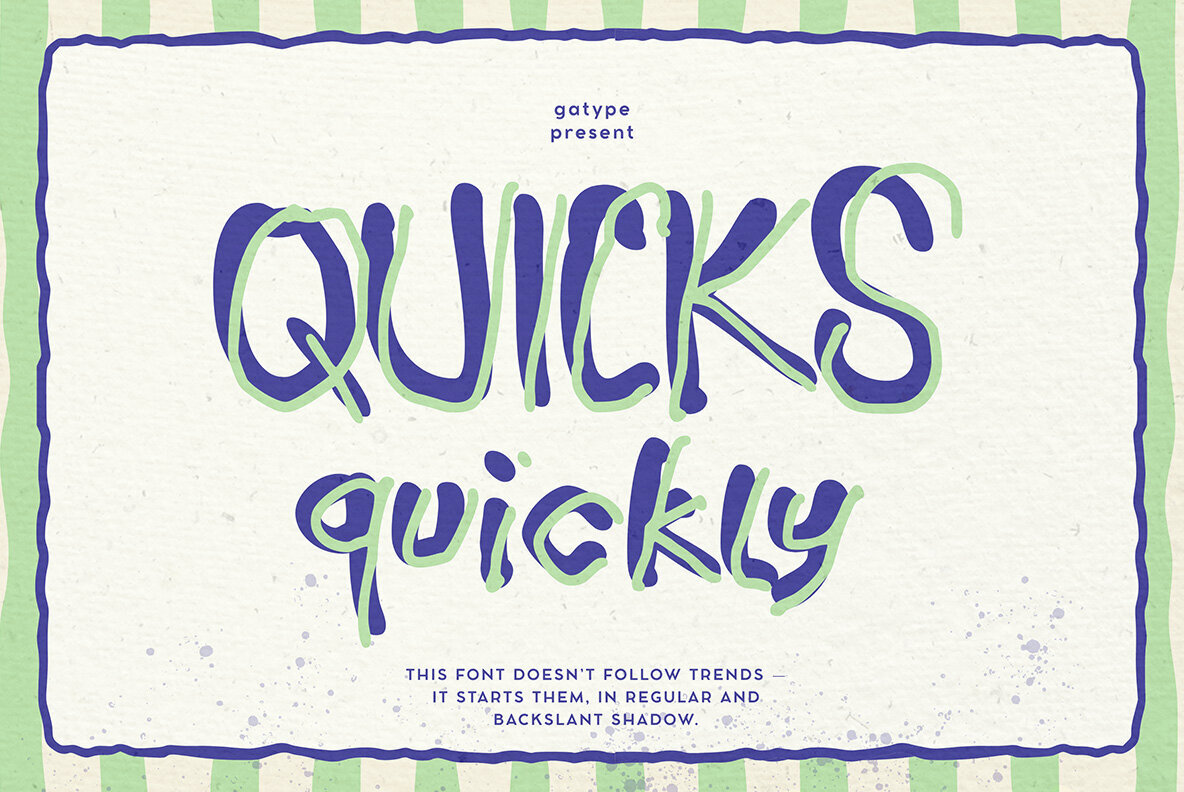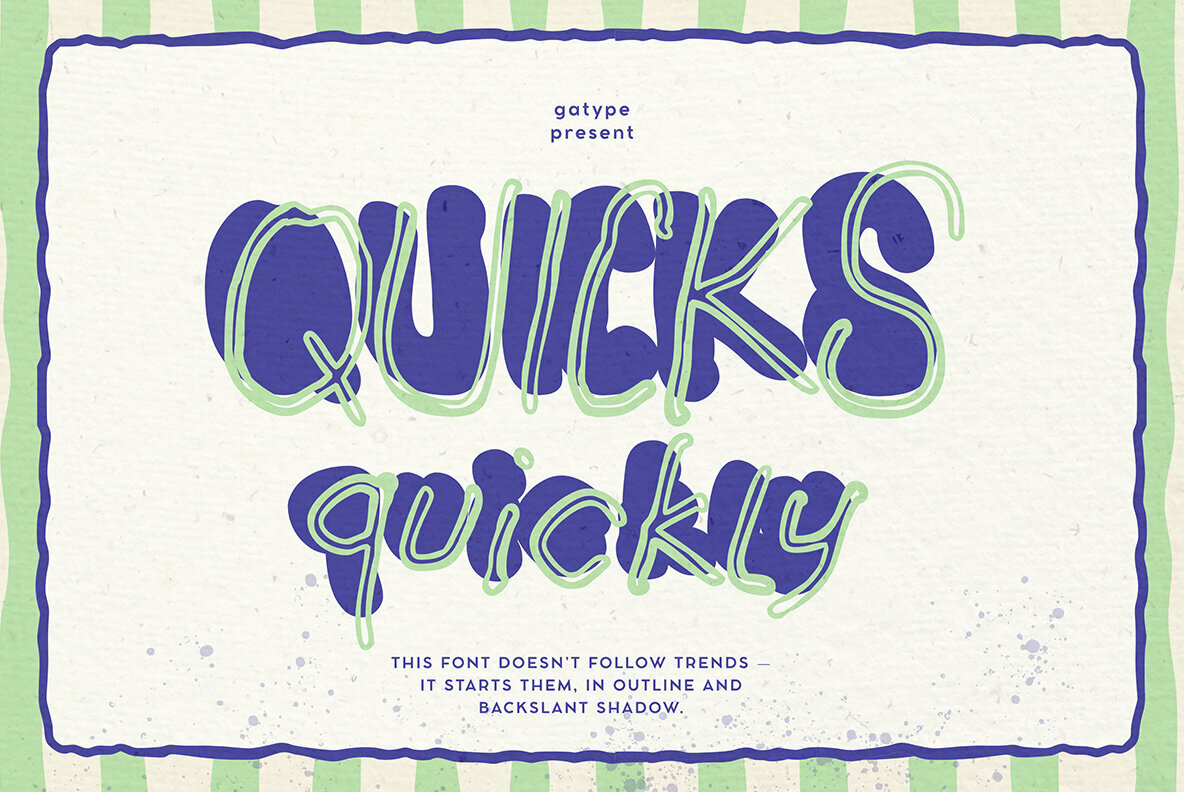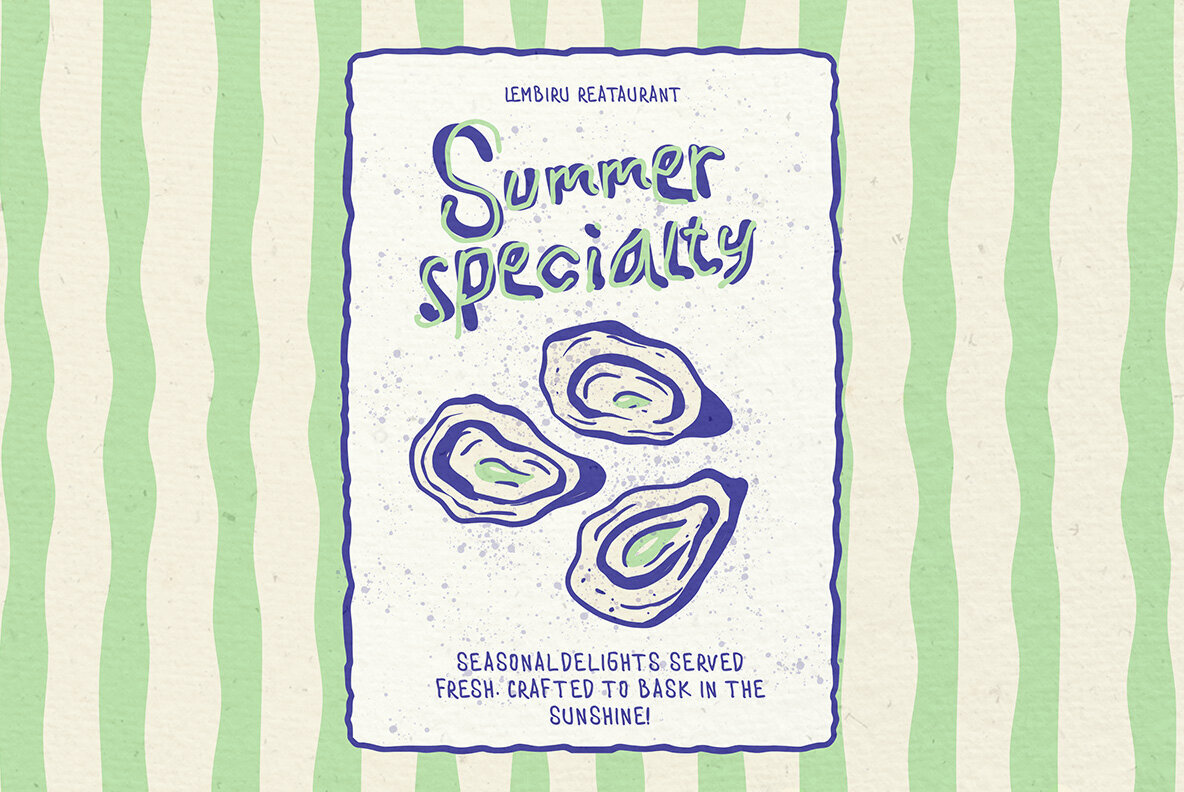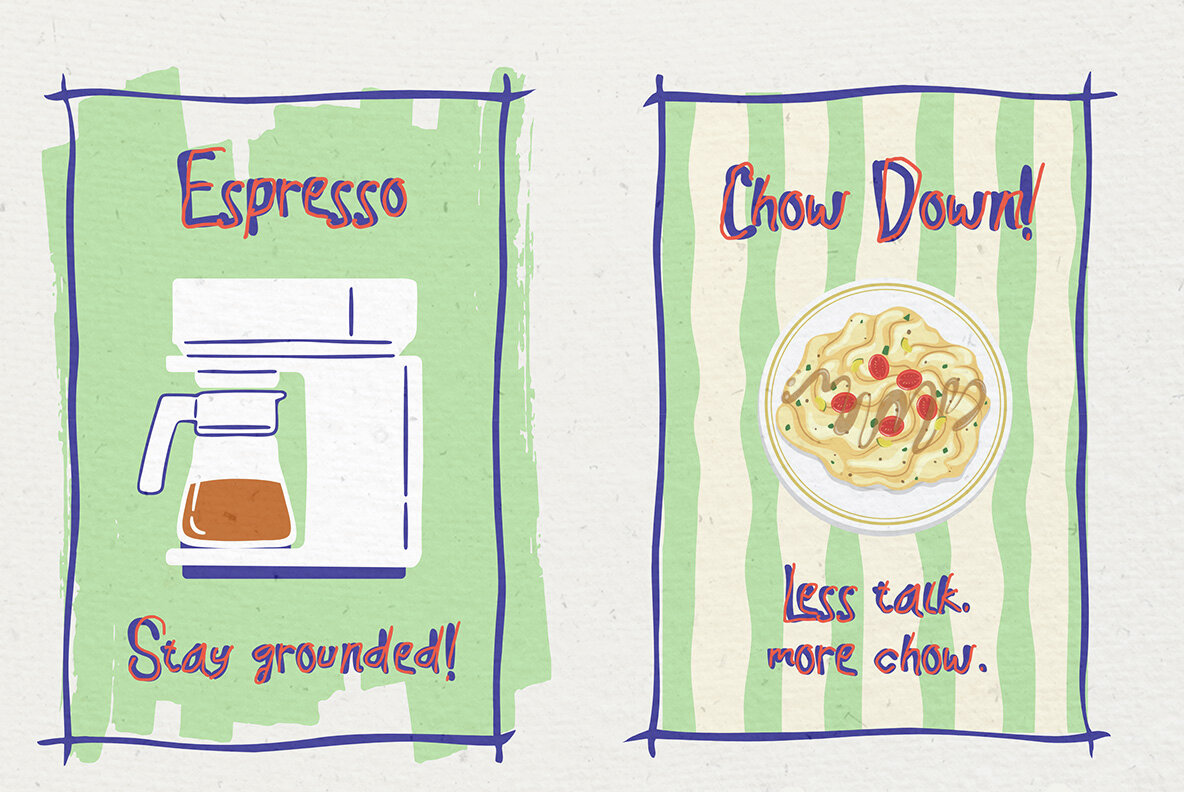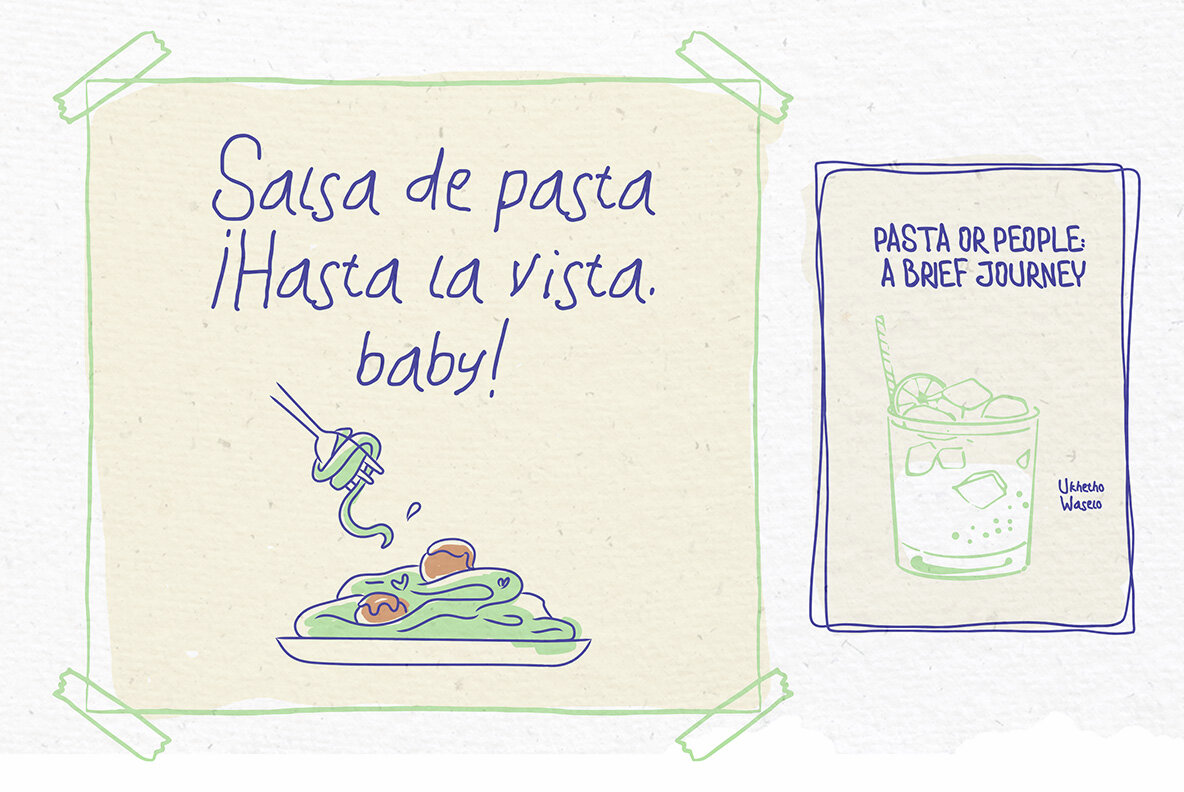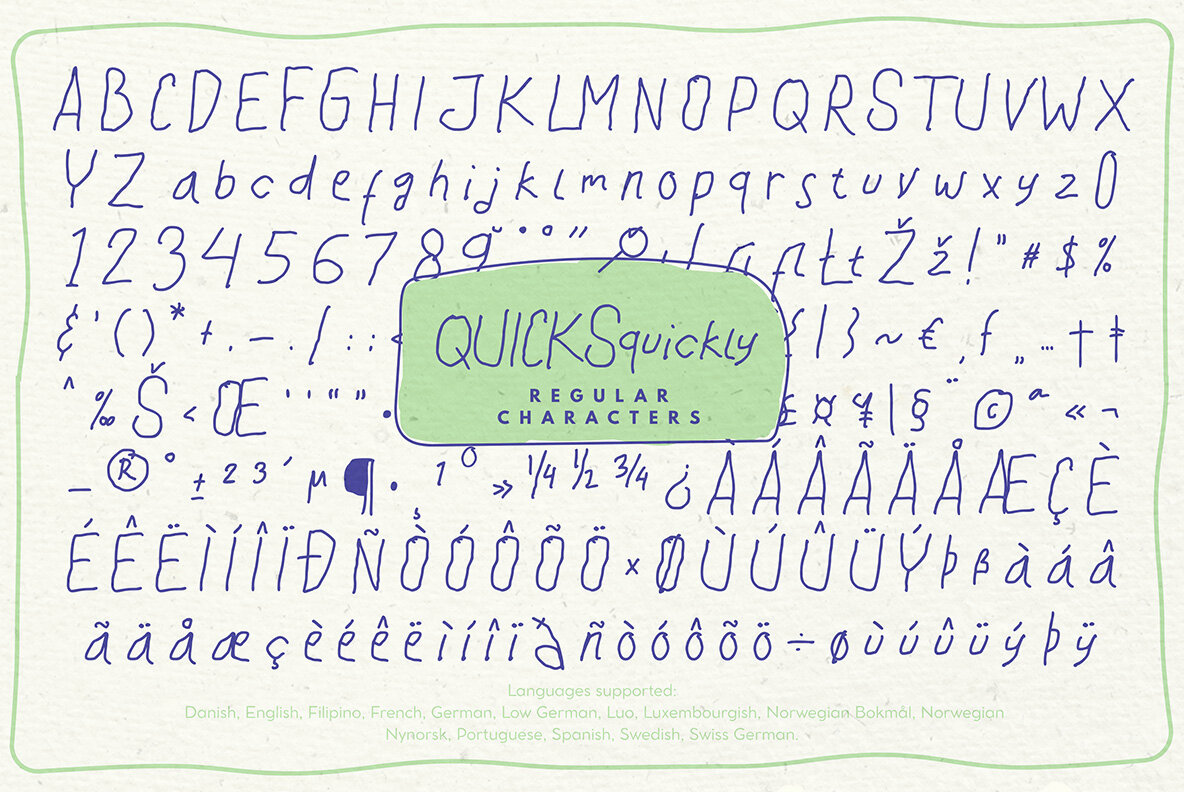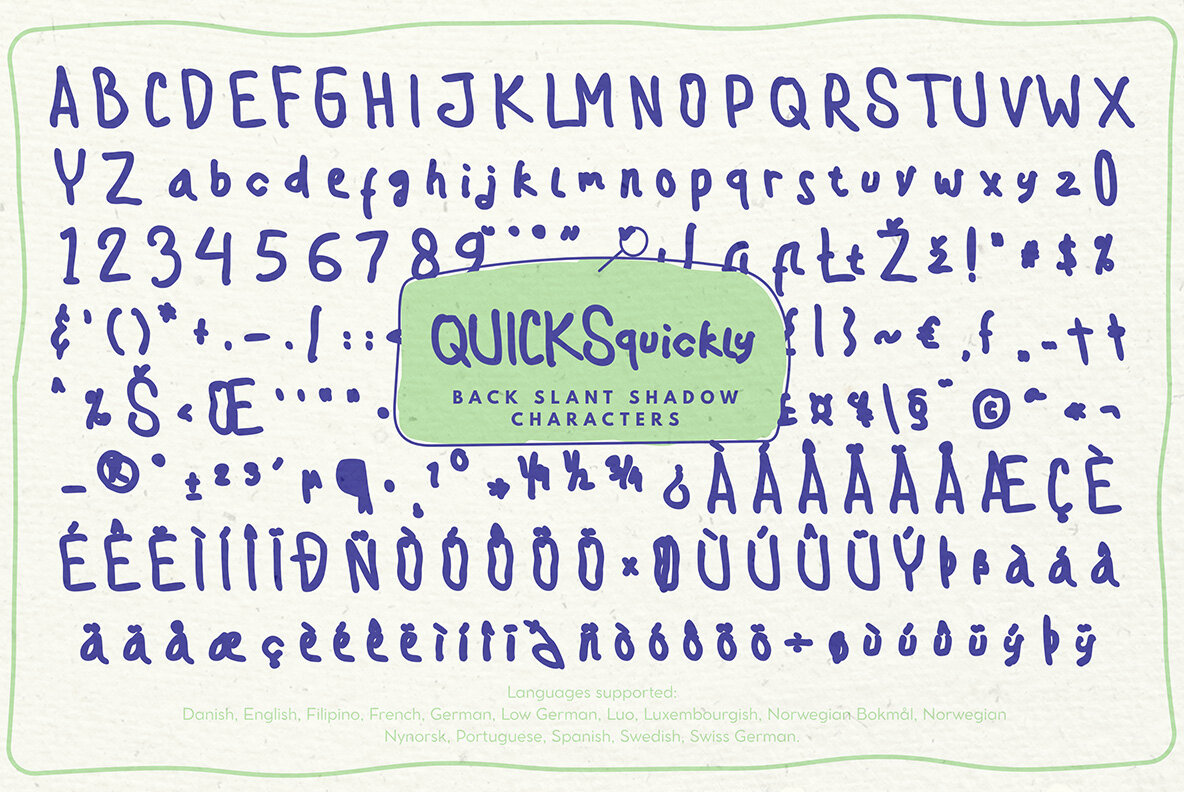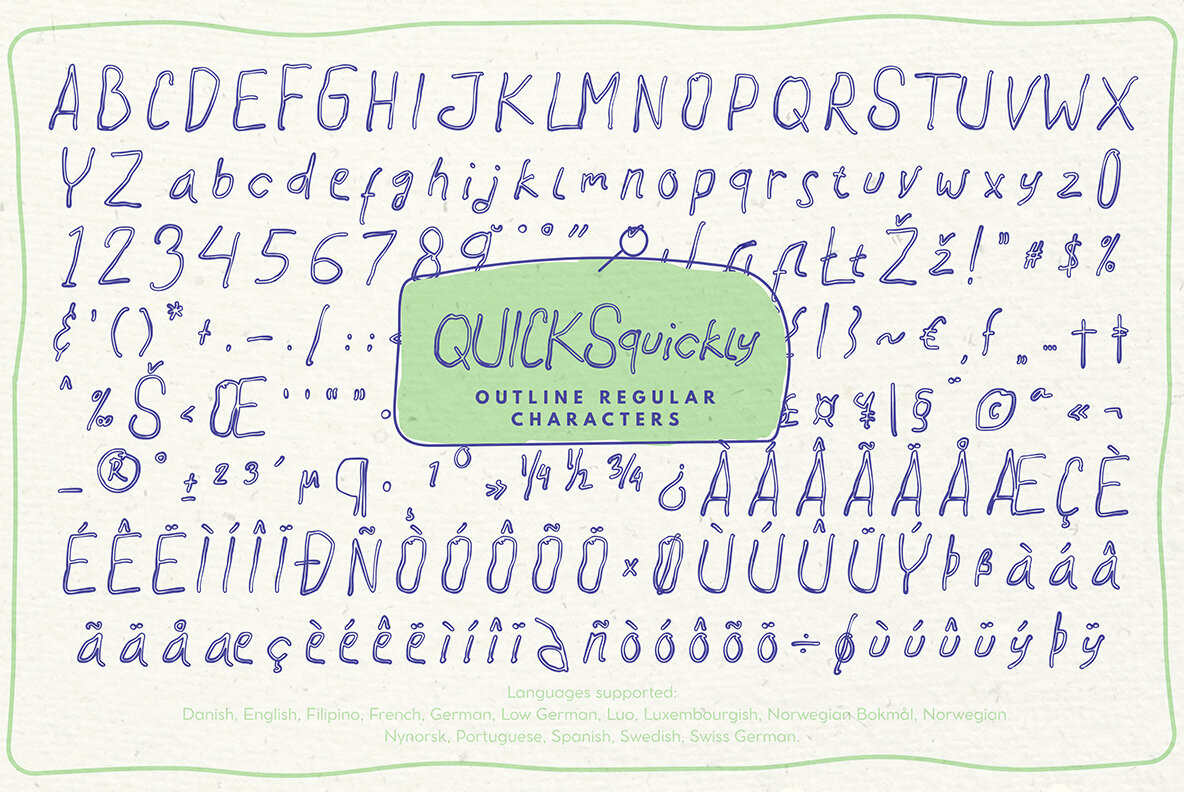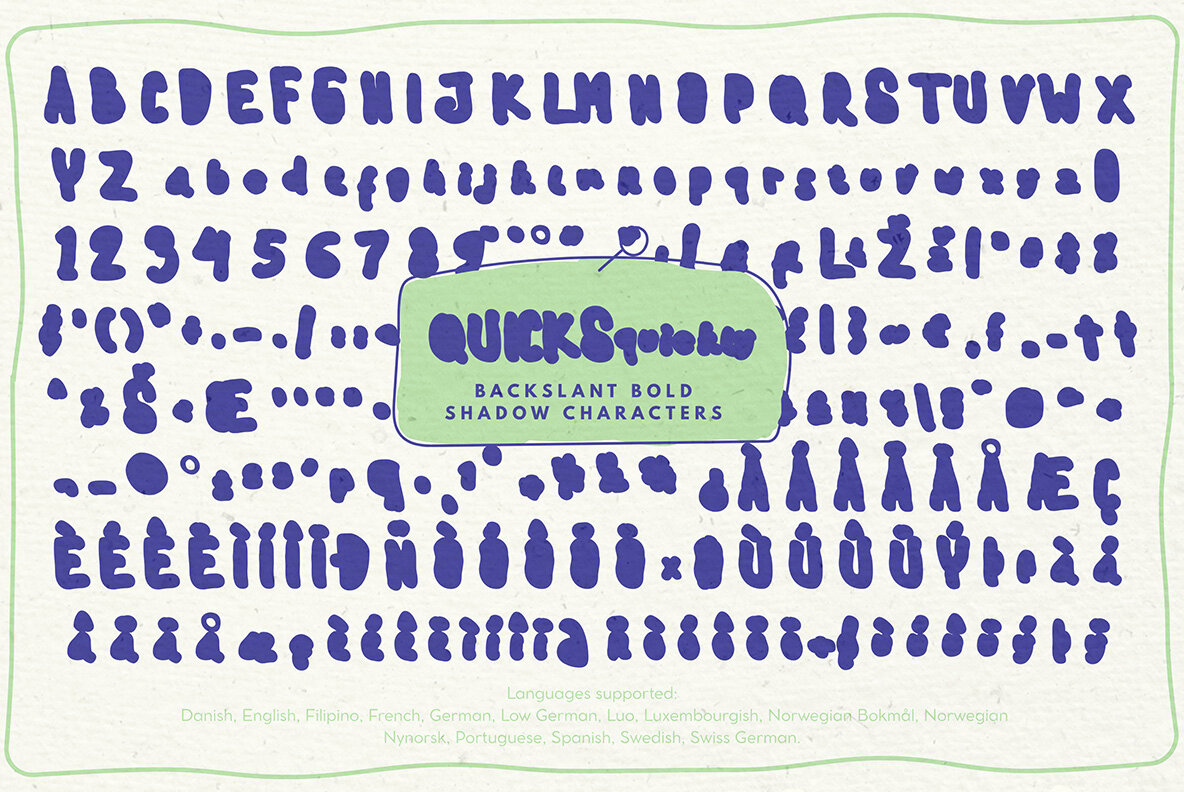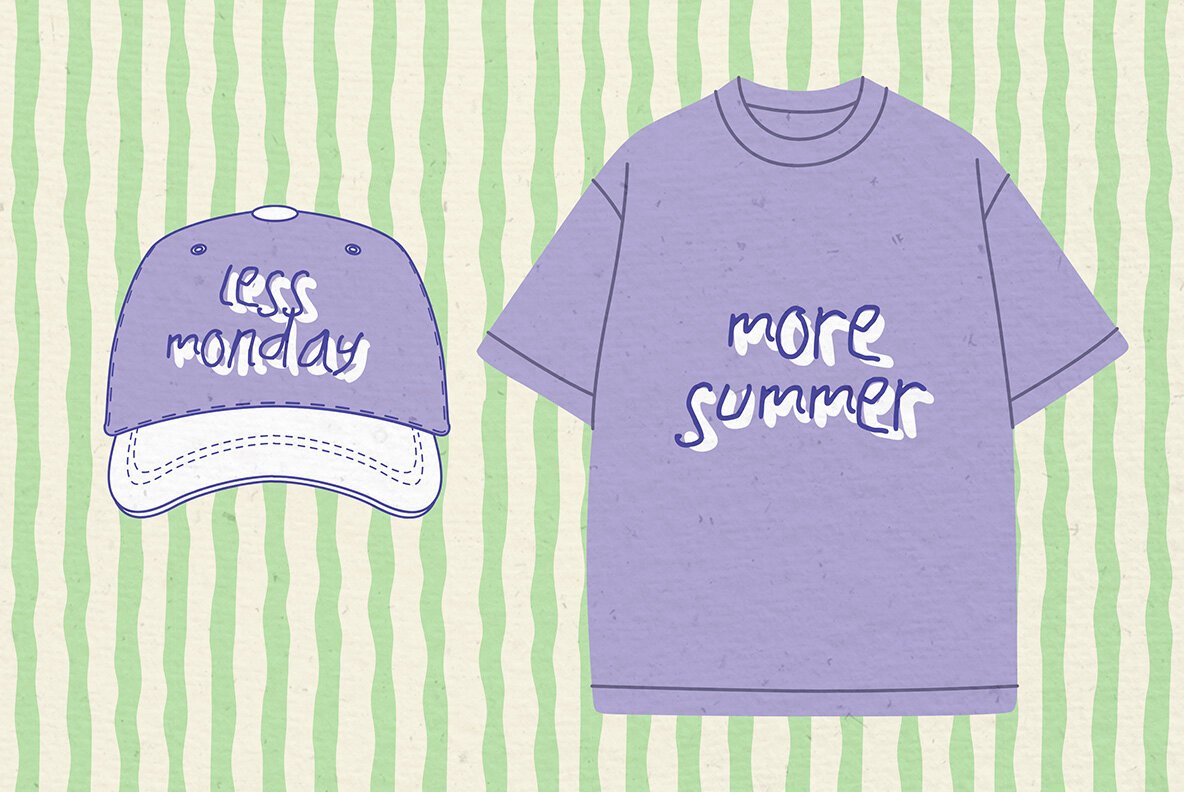
Quicks Quickly Font
Quicksquickly exudes a playful energy, catering to those who appreciate a casual yet dynamic aesthetic. Each stroke imbues a sense of movement and spontaneity, bringing a lighthearted charm to any design. Quicksquickly is perfect for creative branding, social media graphics, and expressive packaging. It effortlessly delivers personality without overstatement, ensuring your designs are memorable. This font embodies a quick, quirky nature that captures attention and inspires creativity. It's a choice that promises to add a distinctive flair to all your projects.Quicksquickly: A Playful Handwritten Font
Versatile Styles